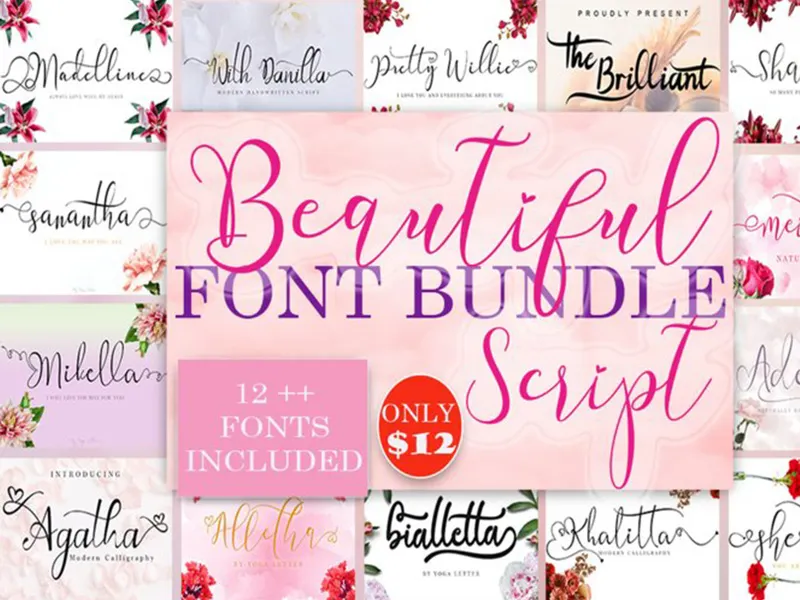
Special Edition Christmas Font Bundles
This set includes 13 beautiful and popular fonts christmas !!!
Adellia
Agatha
Alletha
Bialletta
Khalitta
Madelline
Maretha
Meillea
Mikella
Pretty Willie
Sanantha
Shalitta
Sherllia
This bundle is perfect for a variety of projects such as christmas, weddings, designs, branding, logos, invitations, stationery, social media posts, advertisements, product packaging, product designs, labels, photography, valentine, easter, mother day, father day, watermarks, special events or whatever, and bonus halloween fonts.